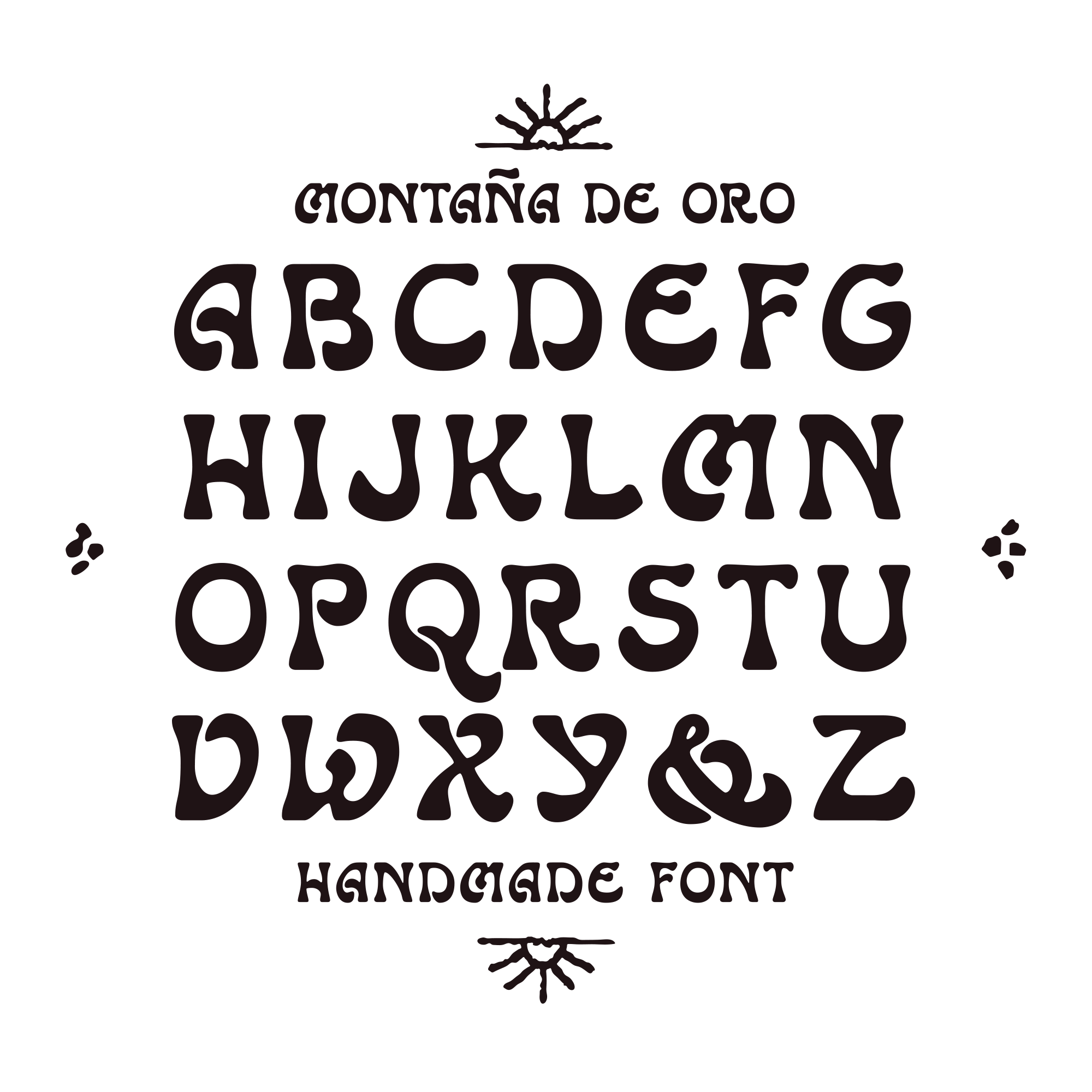
Montaña De Oro is a bold, groovy, and mystical display font with art nouveau features. This is a modern take on letters from the early 1900s that inspired the band posters of the 1960s and 1970s due to their unique and eye-catching shapes. I named it after a magical State Park outside San Luis Obispo. The real Montaña De Oro is a place I love to share with friends and wander about. The font’s funky curves remind me of the natural sand bluffs, smooth weathered rocks, and giant waves of MDO. I love how this shaped out and I’m excited to share it with you!